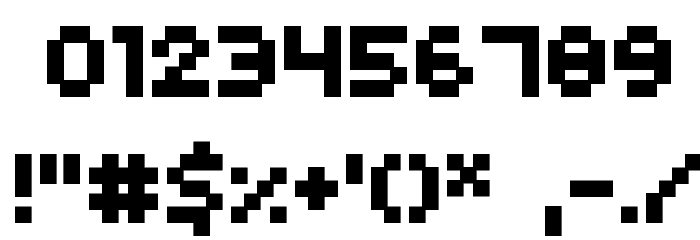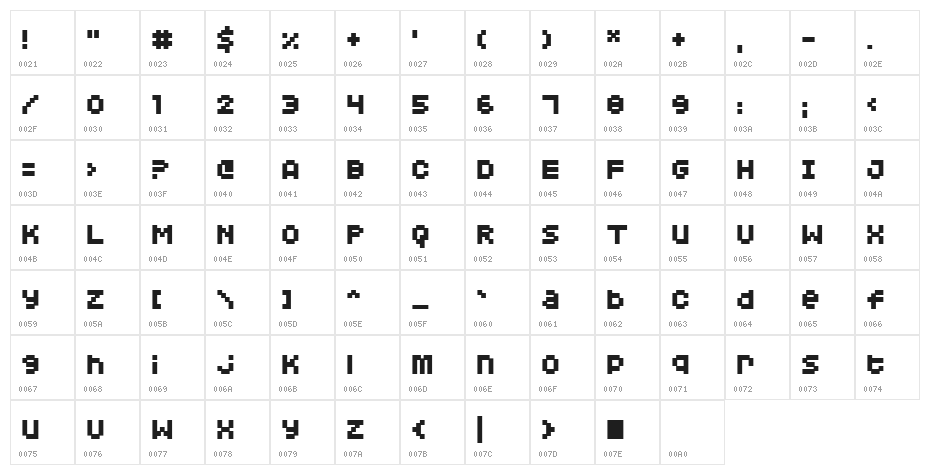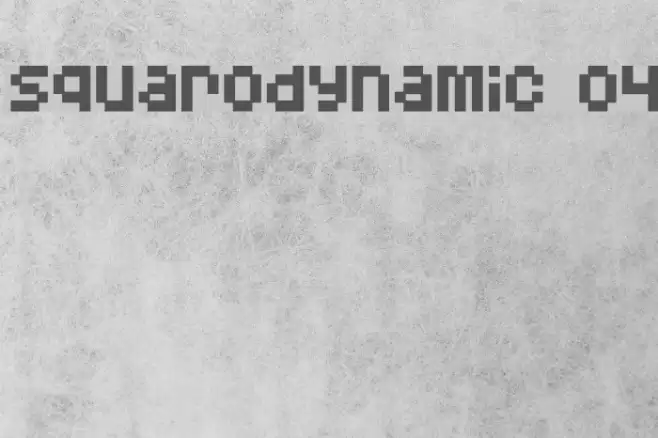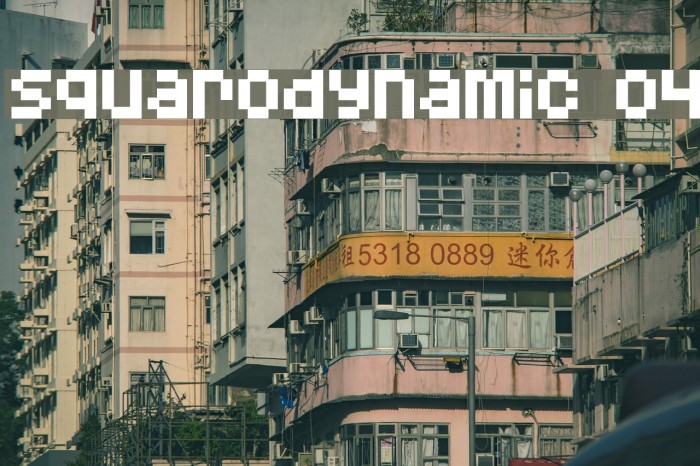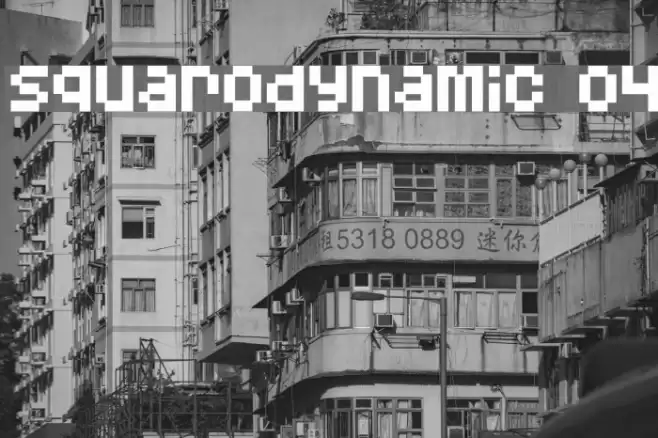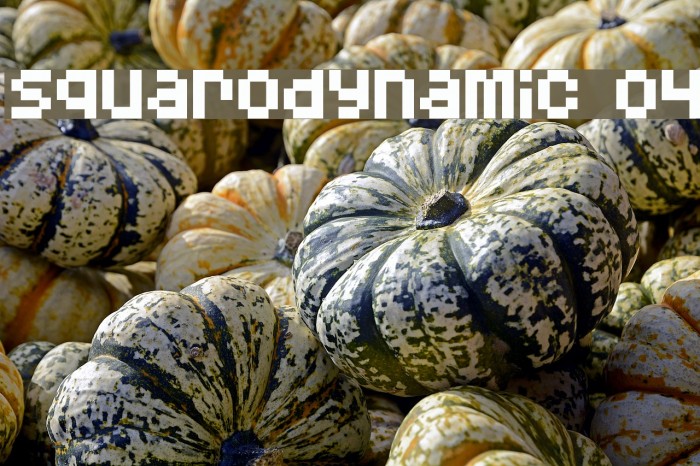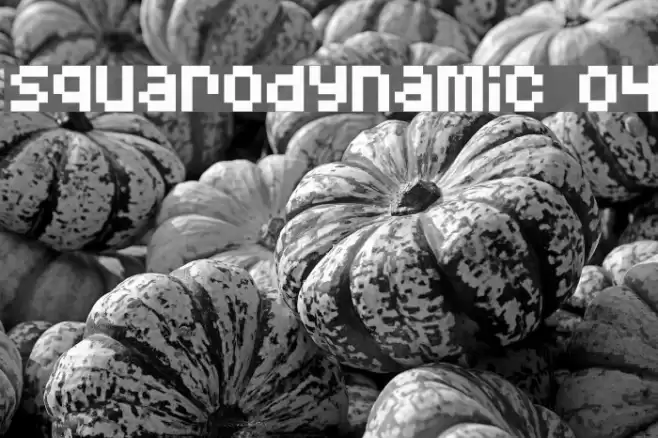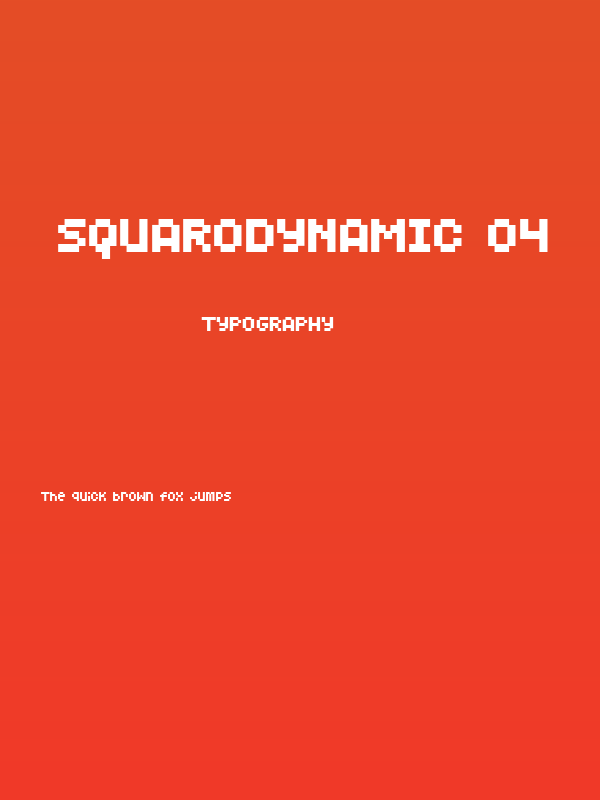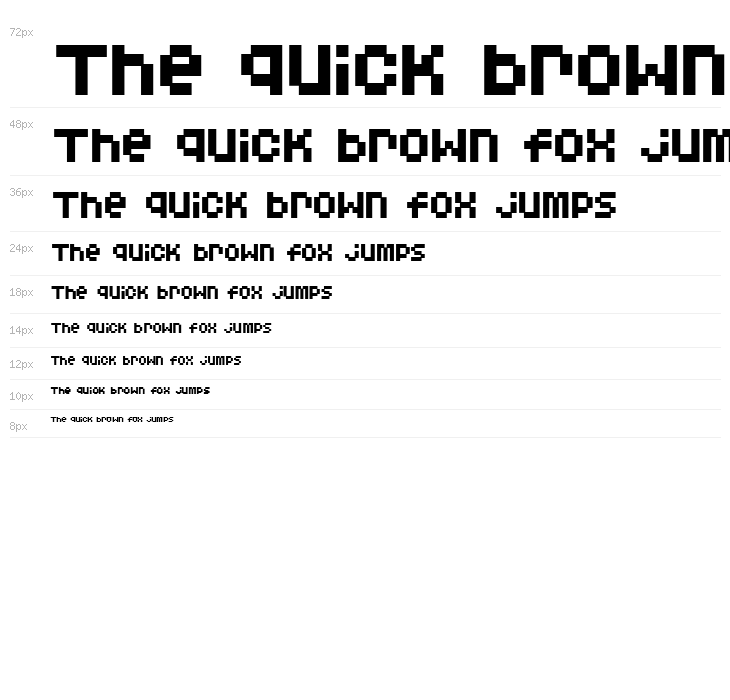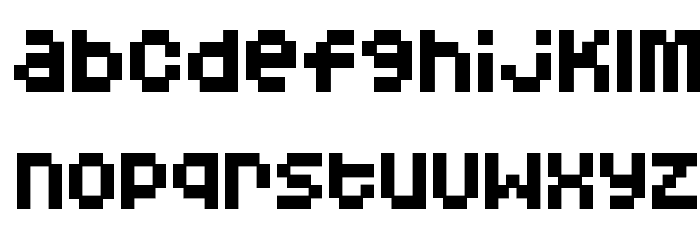
Squarodynamic 04 Font
Squarodynamic 04 Description
This font features a bold, geometric design with a distinctly pixelated appearance. Each character is constructed using a grid-like pattern, giving it a retro, digital feel reminiscent of early computer graphics or video game text. The uniformity in height and width across characters contributes to a cohesive and structured look. Despite its blocky nature, the font maintains readability and clarity, making it suitable for various digital applications. The sharp angles and straight lines create a modern yet nostalgic aesthetic, ideal for projects seeking a tech-savvy or vintage digital vibe.
Overall StyleModern, Vintage
Use CaseLogos, Headlines, Digital displays
Proposed ProjectsIdeal for video game design, digital art projects, tech-themed branding, and retro-style posters.